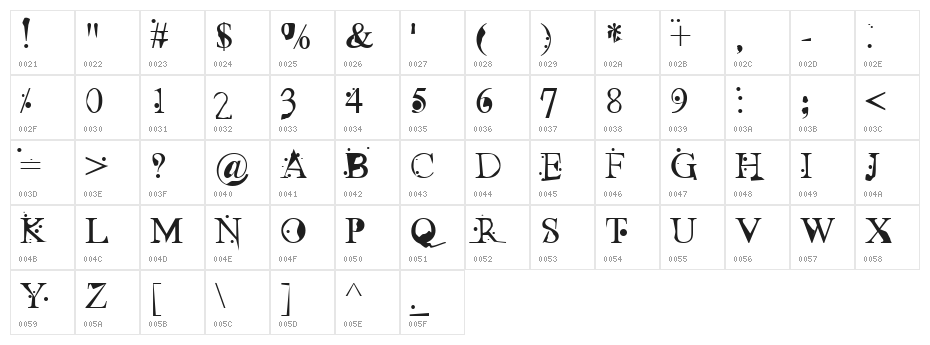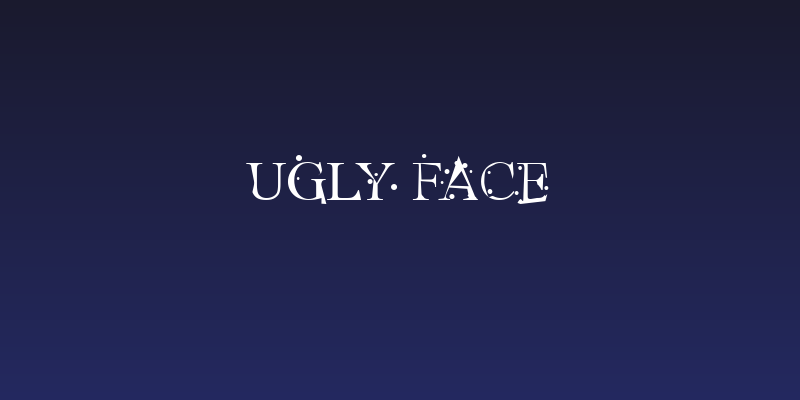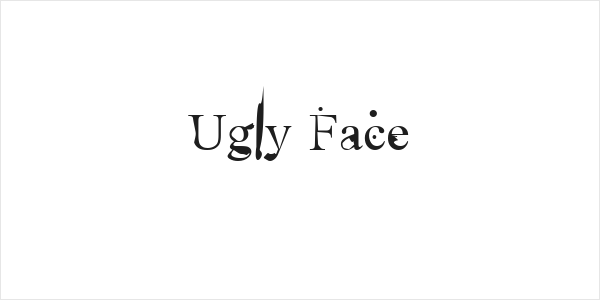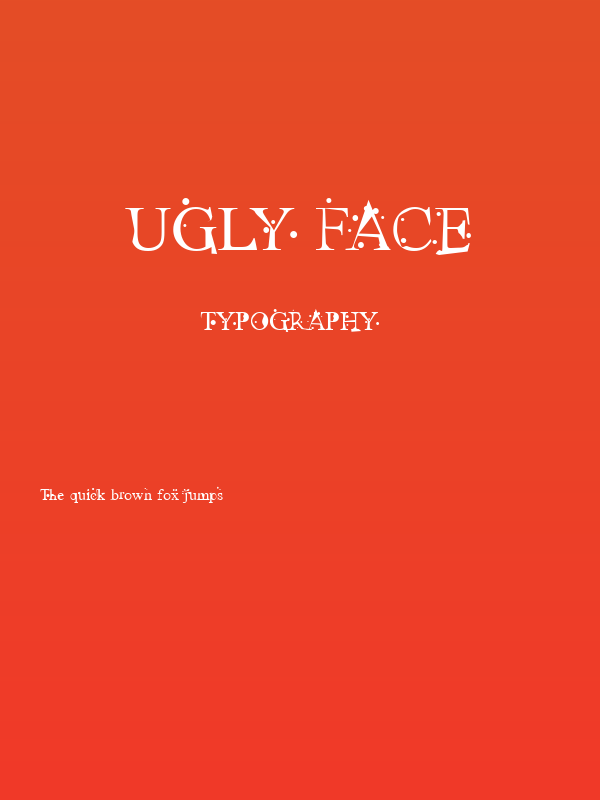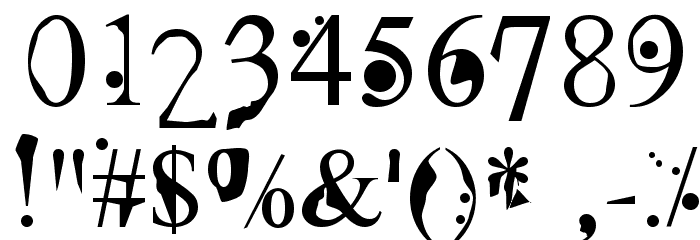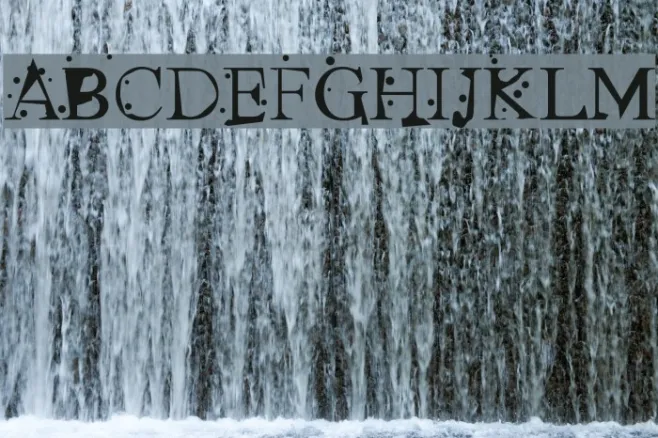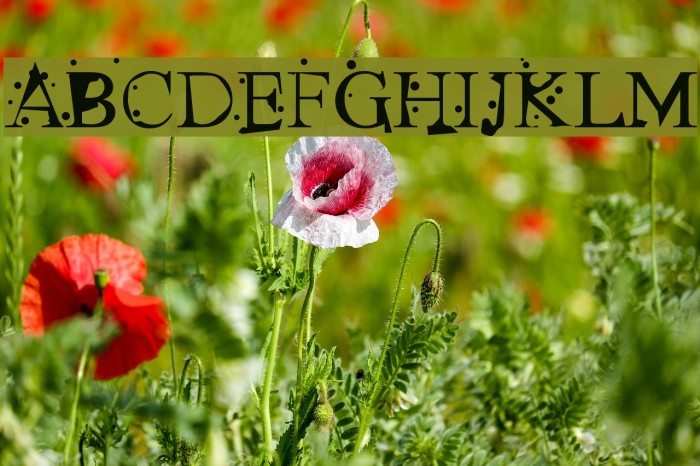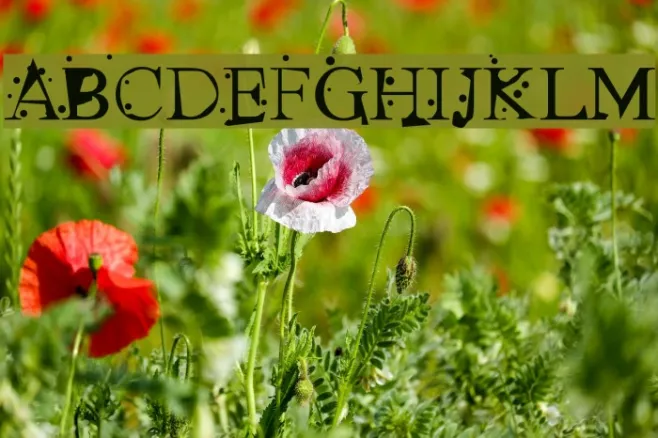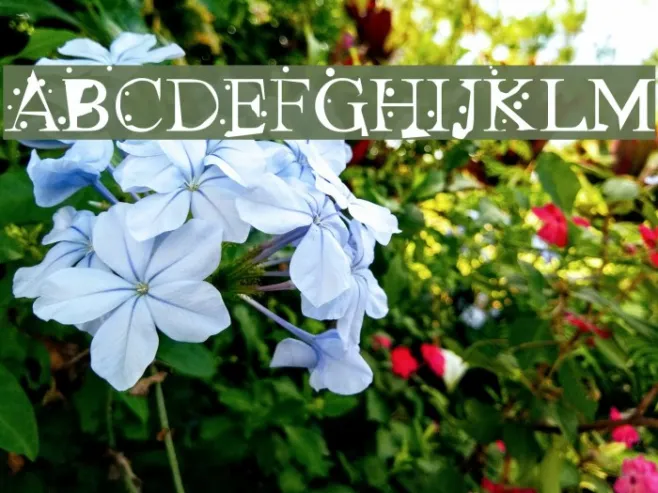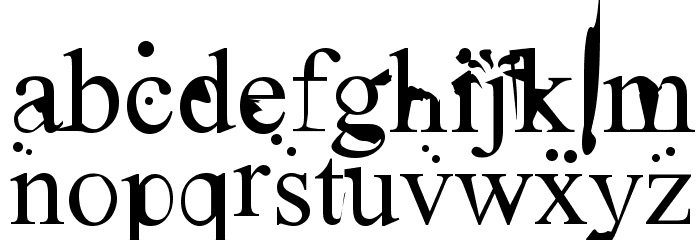
Ugly Face Font
Ugly Face Description
This font exhibits a highly decorative and whimsical style, characterized by its playful and irregular shapes. Each letter features unique embellishments, such as dots and varying stroke thicknesses, giving it a quirky and artistic appearance. The uppercase and lowercase letters maintain a consistent theme, with exaggerated serifs and unexpected curves. Numbers and special characters follow the same decorative approach, ensuring a cohesive look across all glyphs. This font's distinct personality makes it stand out, ideal for creative and unconventional design projects.